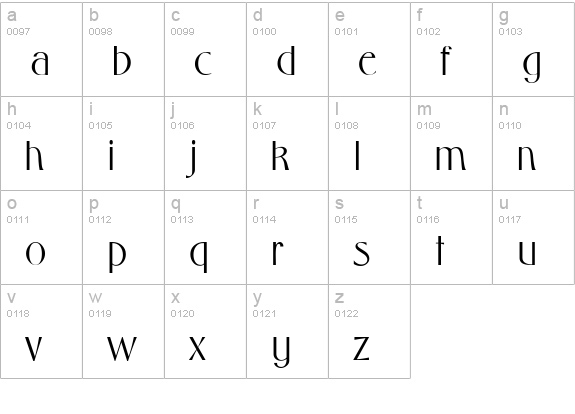
CapatolaSSK Font Details
CapatolaSSK is a versatile and elegant font that combines modernity with a touch of sophistication. Its clean lines and unique curves make it perfect for a wide range of design projects, from branding to packaging to editorial layouts. The font exudes a sense of class and professionalism while remaining approachable and easy to read. What sets CapatolaSSK apart is not just its design, but also its accessibility. This stunning font is available for free download at FontsMarket.com, allowing designers and creatives of all kinds to easily incorporate it into their work without any barriers. With CapatolaSSK, you can elevate your designs and make a lasting impression without breaking the bank. Whether you're working on a logo, a poster, a website, or any other creative project, CapatolaSSK is sure to bring a touch of style and sophistication to your work. Download it for free today and see the difference it can make in your designs.